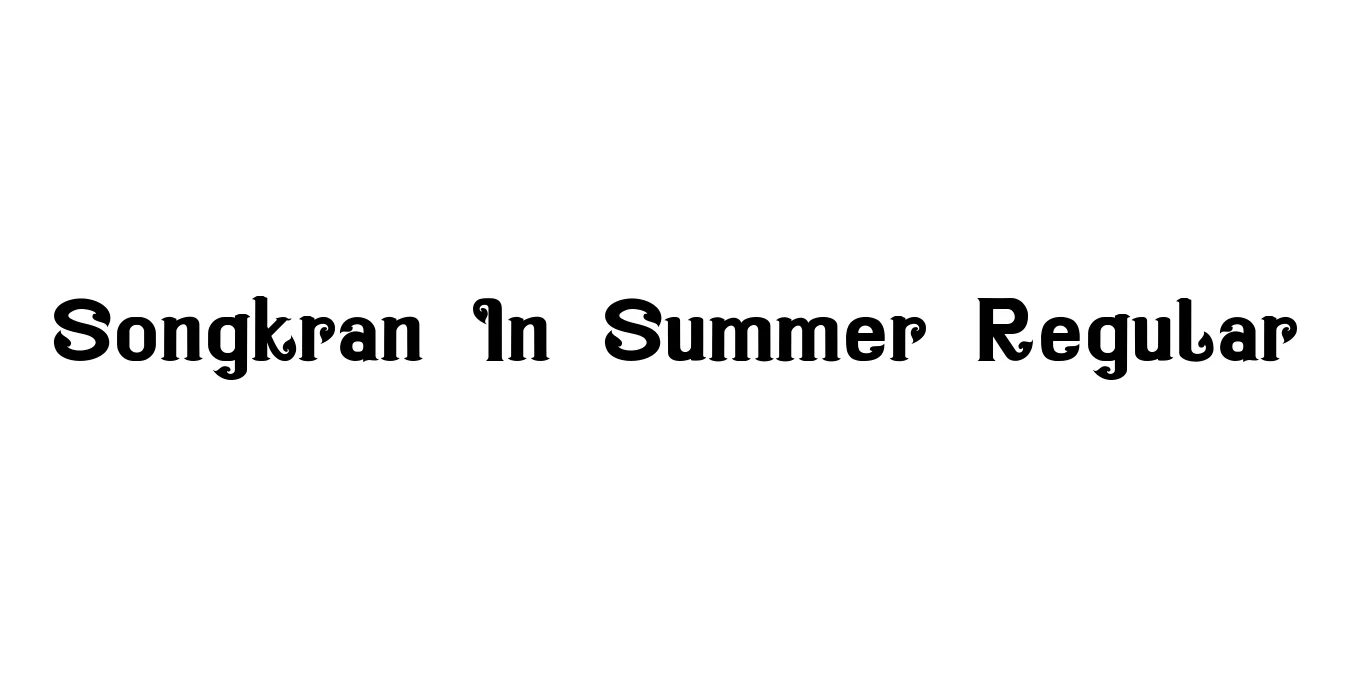
Songkran In Summer Regular
Songkran In Summer Regular is a vibrant and energetic display font created by Alit Design. Inspired by the joyous Thai New Year water festival, the typeface captures the essence of celebration, refreshment, and tropical heat through its organic, hand-drawn aesthetic. The letterforms feature slightly irregular edges and a playful rhythm that mimics the fluid motion of water and the spontaneous nature of summer festivities.
This font is meticulously crafted to serve as a focal point in decorative designs. It includes a variety of stylistic alternates and unique ligatures that allow designers to create customized, high-impact typography. Whether used for seasonal marketing campaigns or cultural event branding, Songkran In Summer brings a distinct personality and a sense of warmth to any creative project, making it a favorite for designers looking to evoke a festive summer atmosphere.
Songkran In Summer Regular Best Uses
Perfect for promoting summer festivals, beach parties, and cultural celebrations.
Ideal for food and beverage labels that require a fun, organic look.
Great for eye-catching Instagram graphics and seasonal promotional banners.
Highly suitable for t-shirt prints, vacation merchandise, and streetwear.